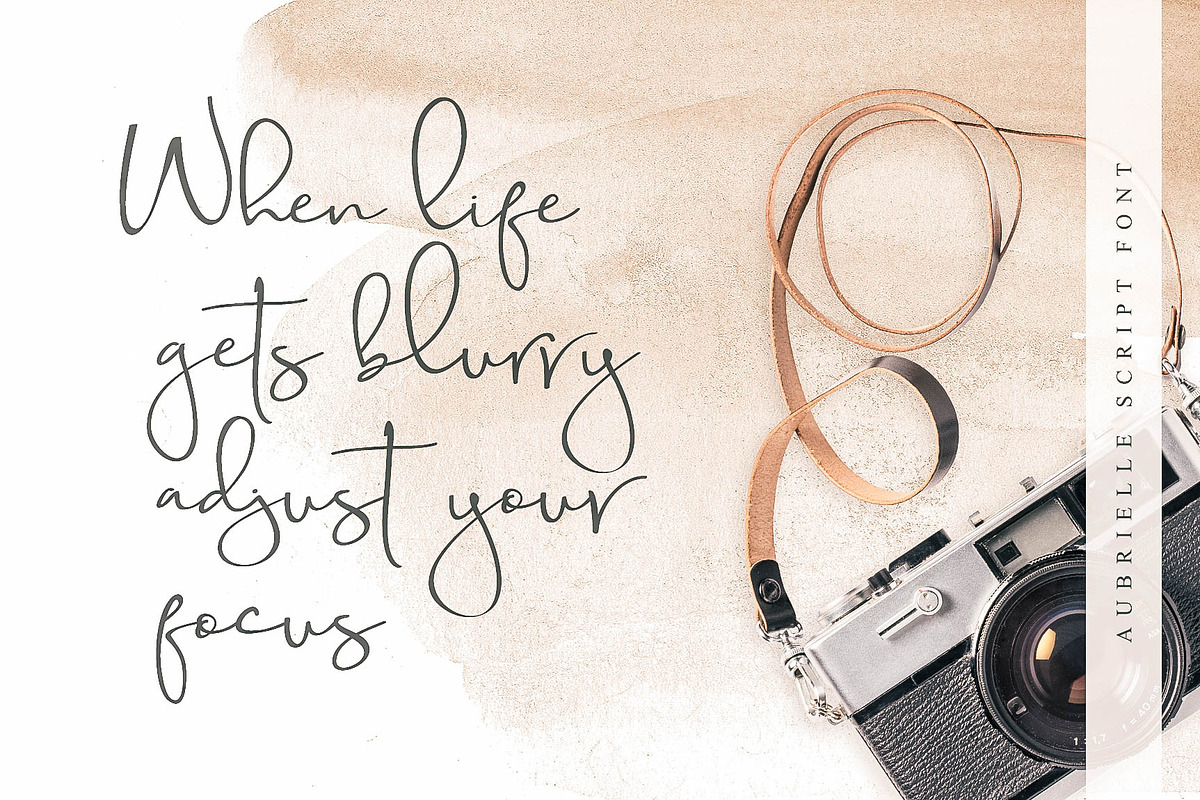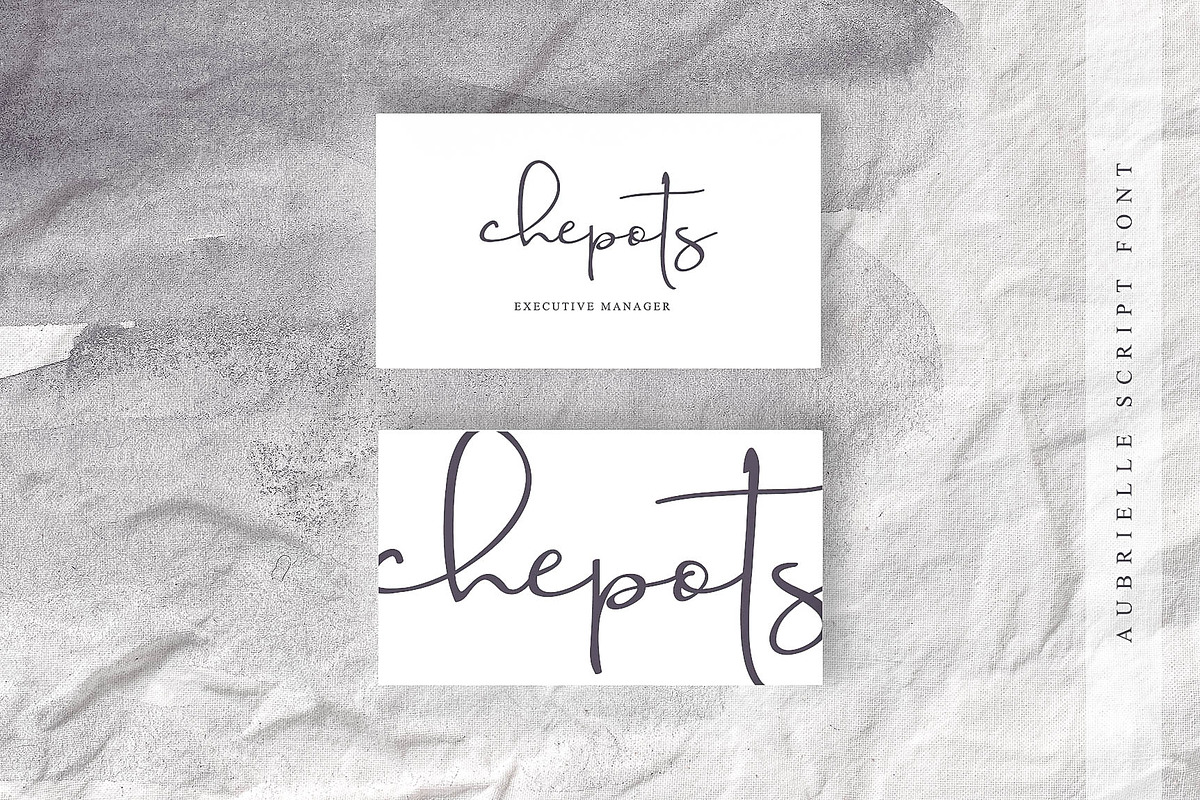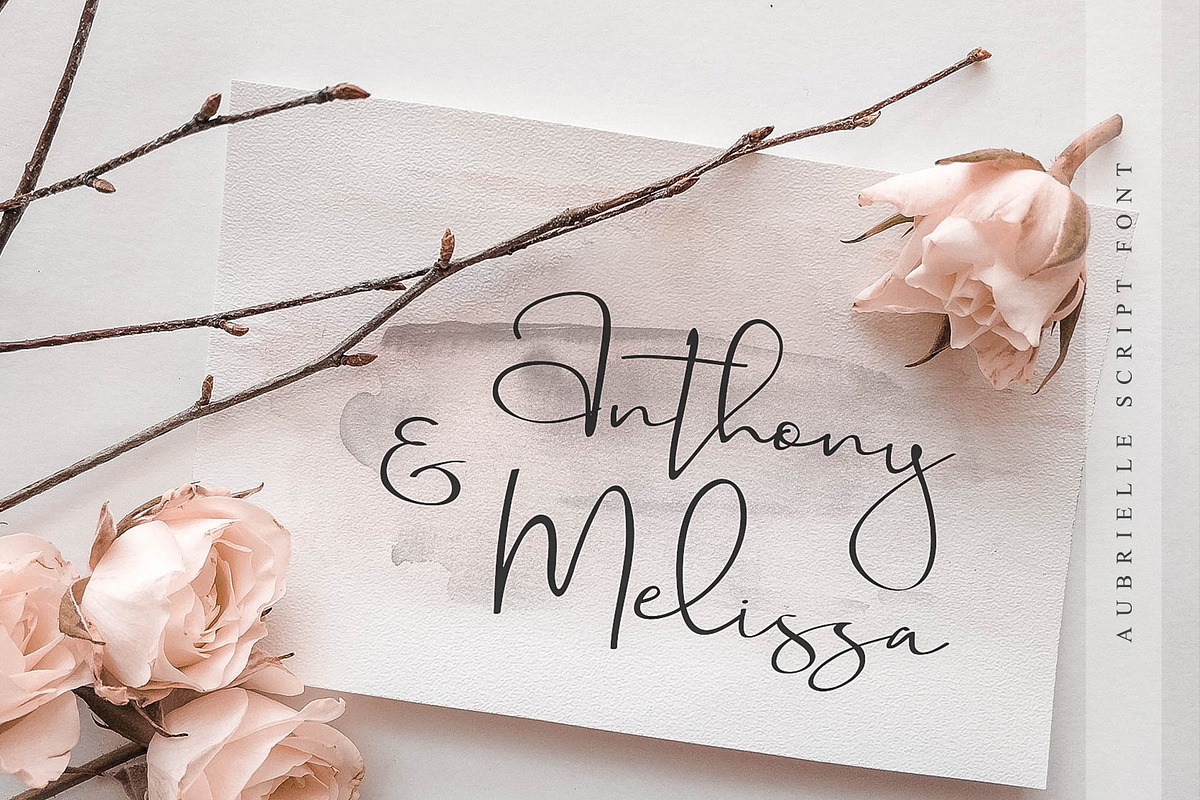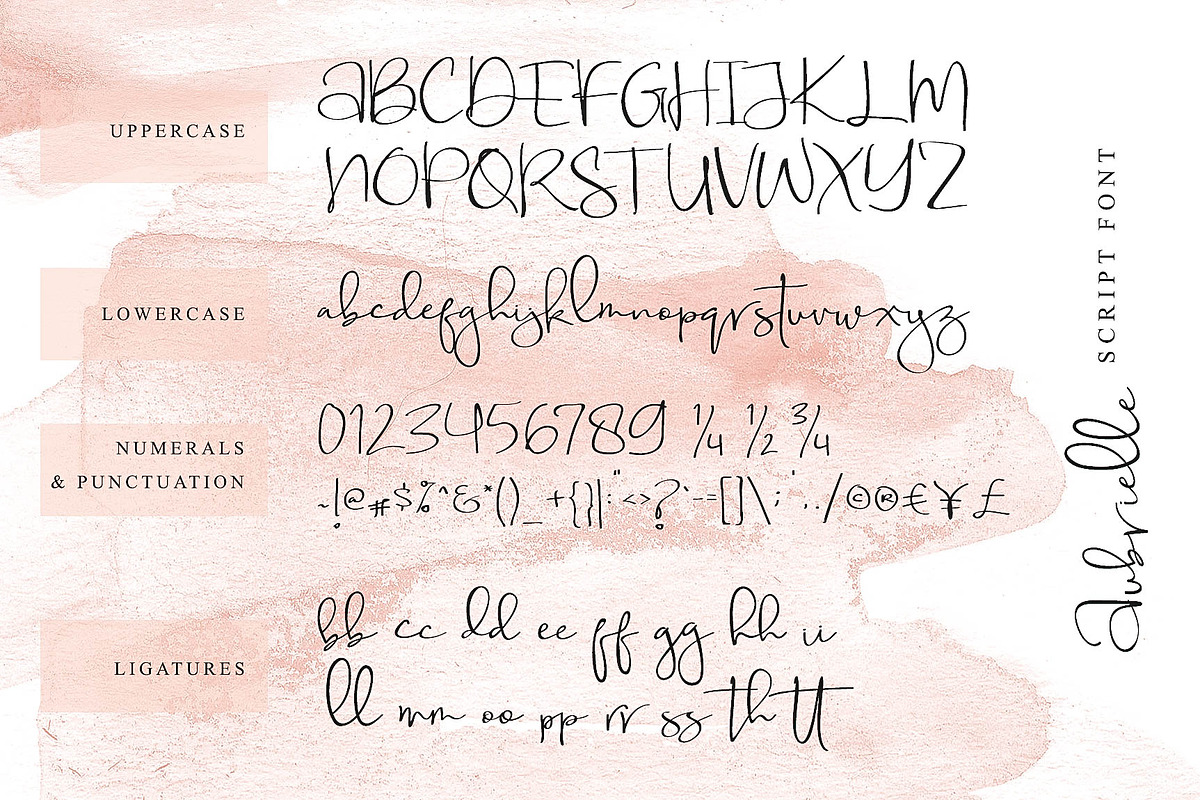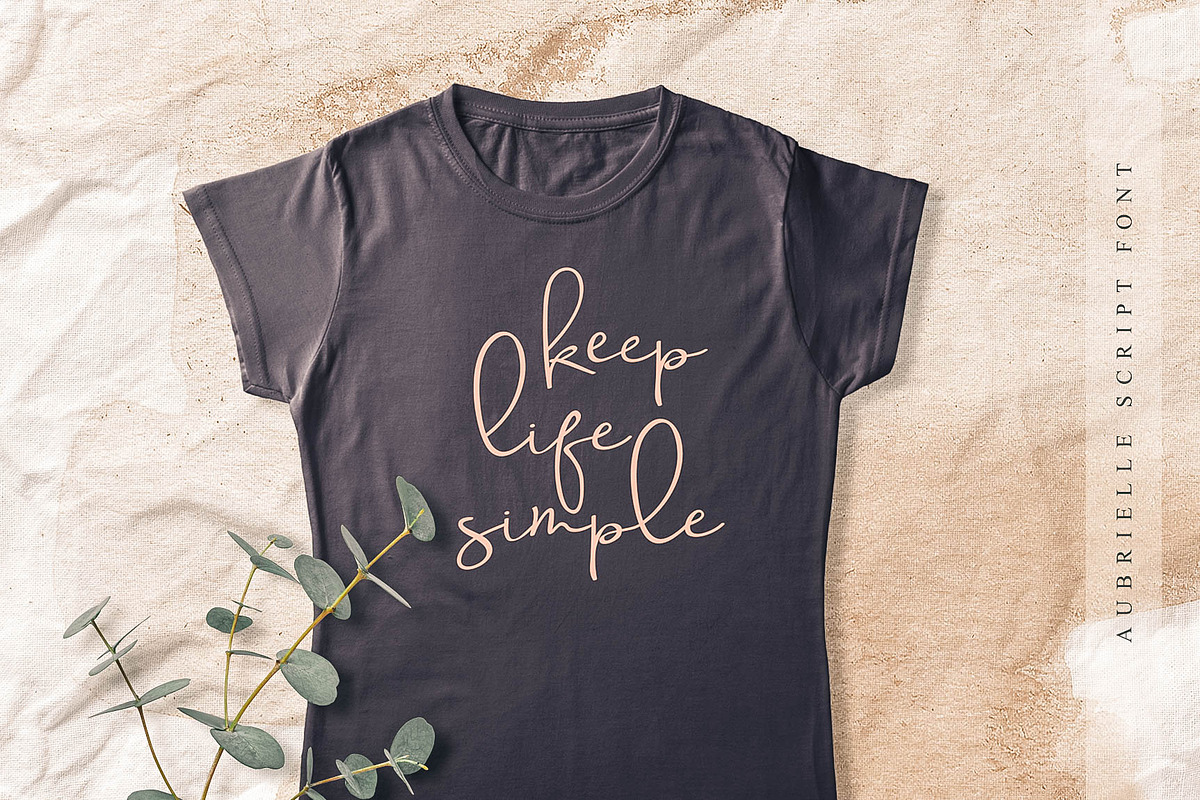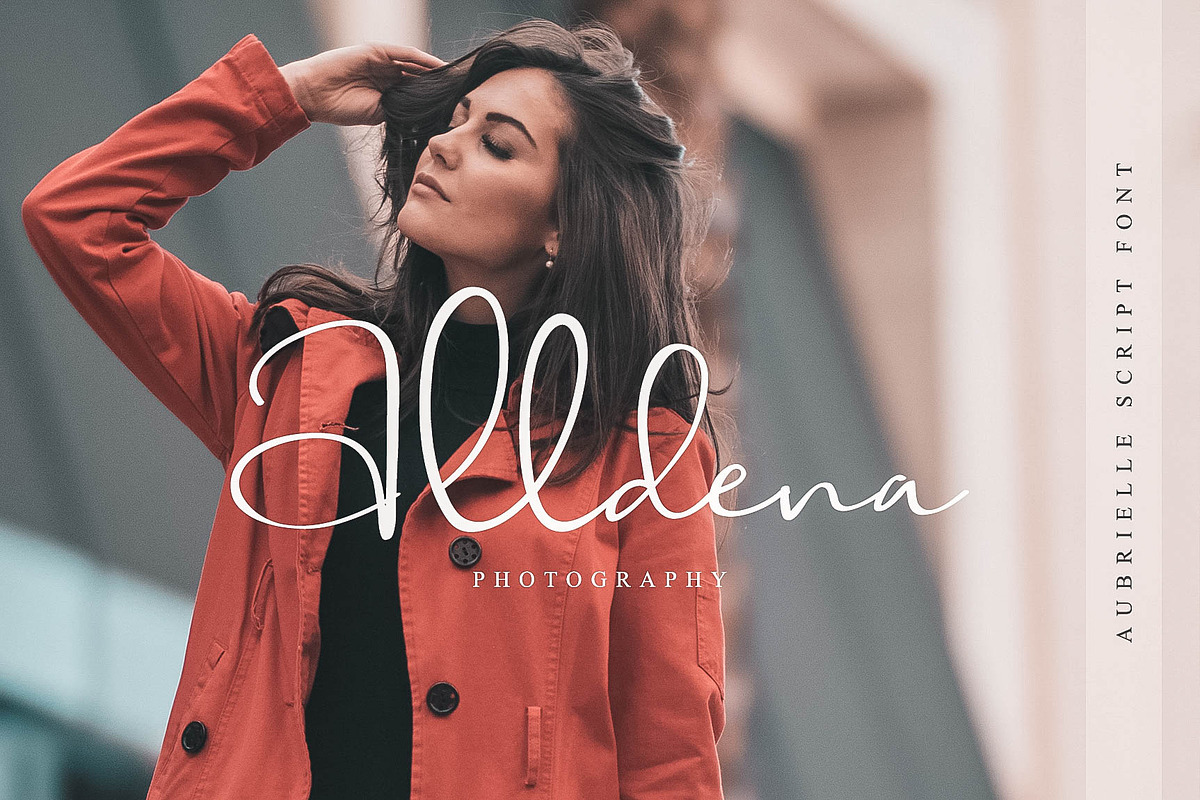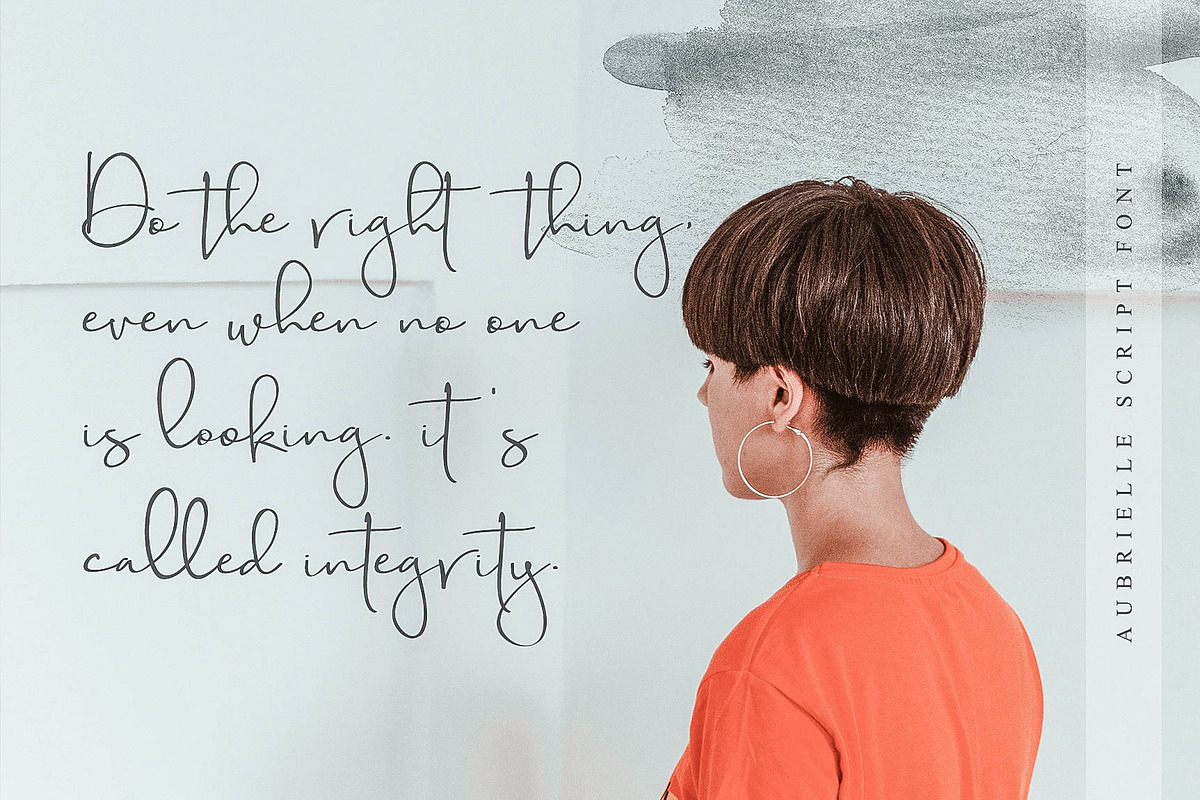
Aubrielle Script Font
Introducing Aubrielle script font! It allows you to create stunning and easy hand-lettering in an instant. Ideal for the logo, quotes, wedding, product label/packaging, fashion, letter, advertising, invitation, poster, merchandise, greeting cards, etc
★ New Update •Ligatures! Aubrielle Script Font has now been updated to include new 28 ligatures: at, ath, alt, ck, ct, et, eth, ett, fl, ft, gt, ht, ill, it, itt, lt, nt, ot, oth, ott, pl, pt, sk, sl, st, ul ut, utt.